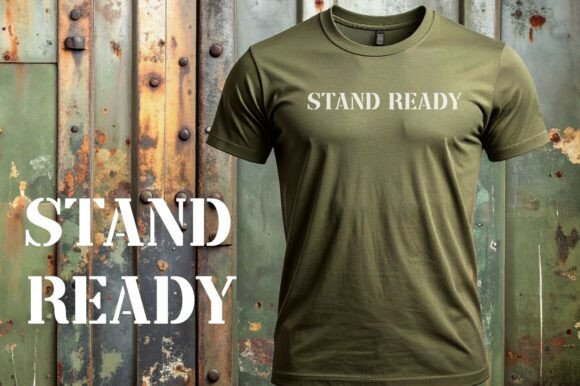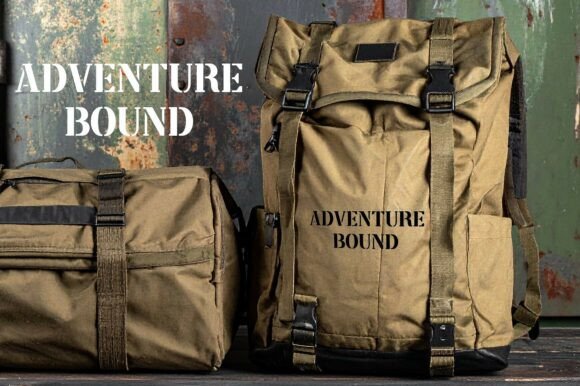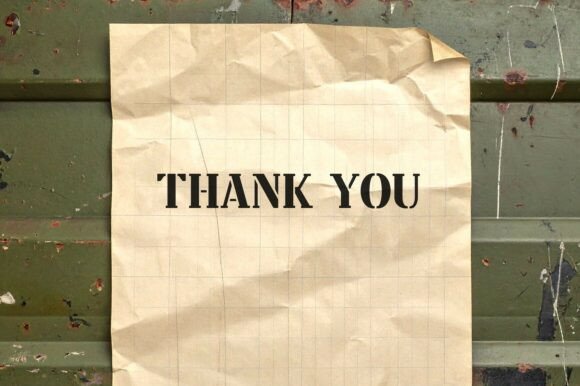
Introduction to Angkatan Bersenjata Font
The font “Angkatan Bersenjata” is a robust and commanding stencil typeface, immediately evoking a sense of military precision, industrial strength, and gritty authenticity.
Characterized by its segmented letters, typically used for marking crates or military vehicles, it conveys a no-nonsense, functional, and powerful aesthetic The blocky, all-caps design ensures maximum readability and impact, even from a distance.
Key Features of Angkatan Bersenjata Font